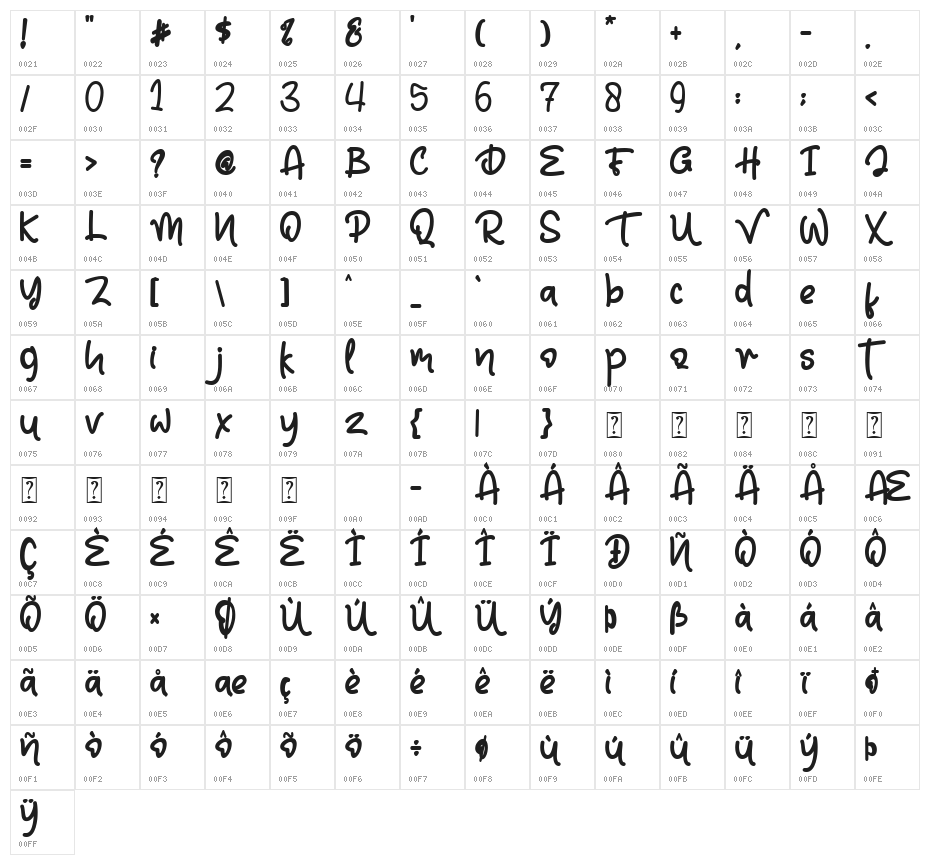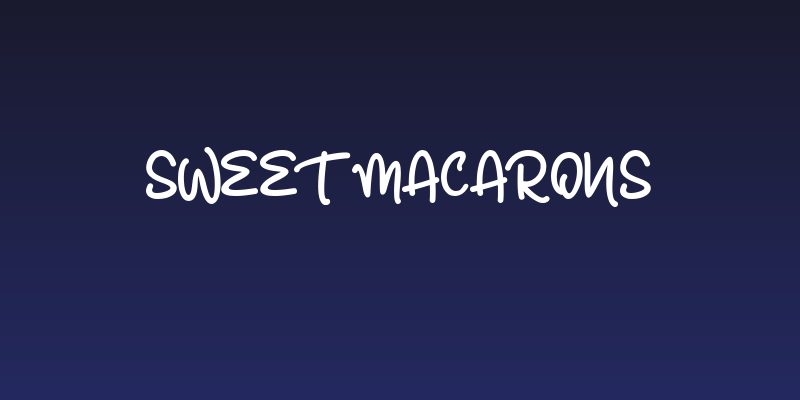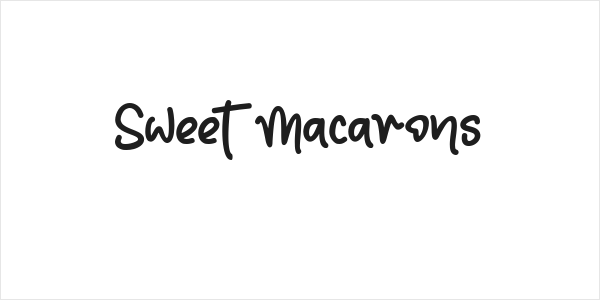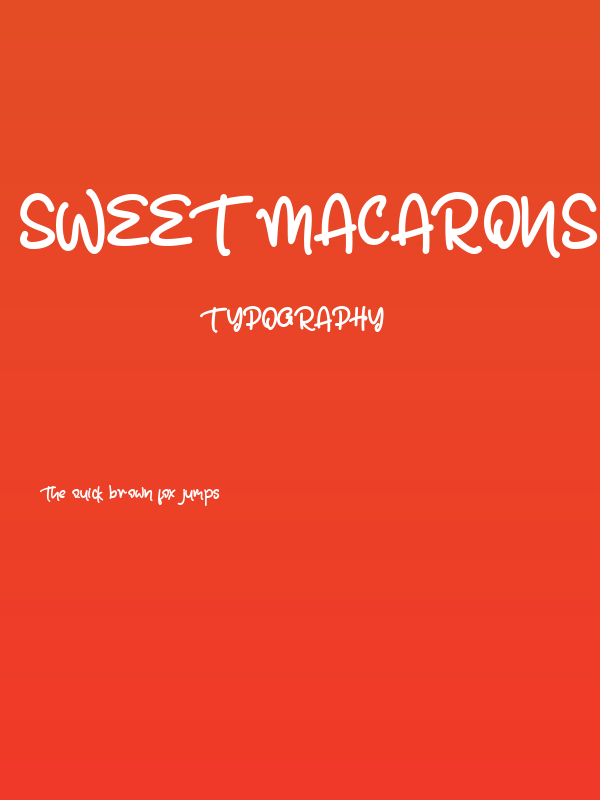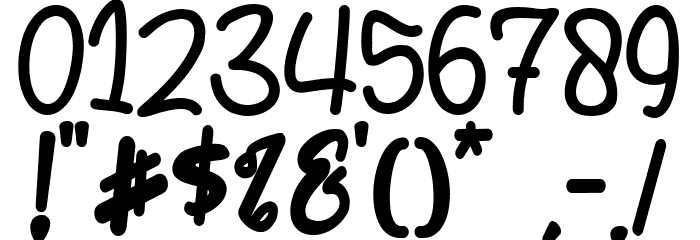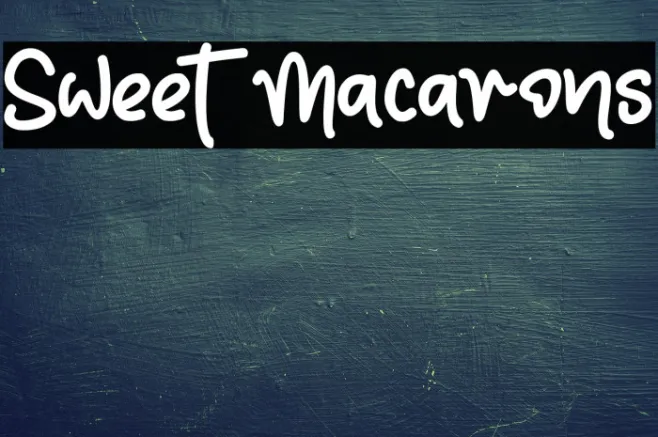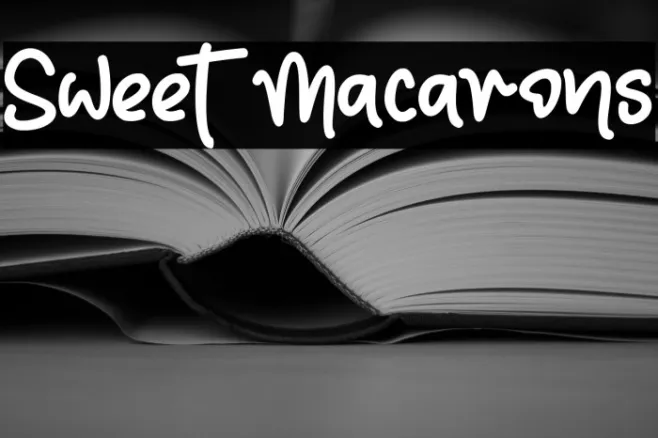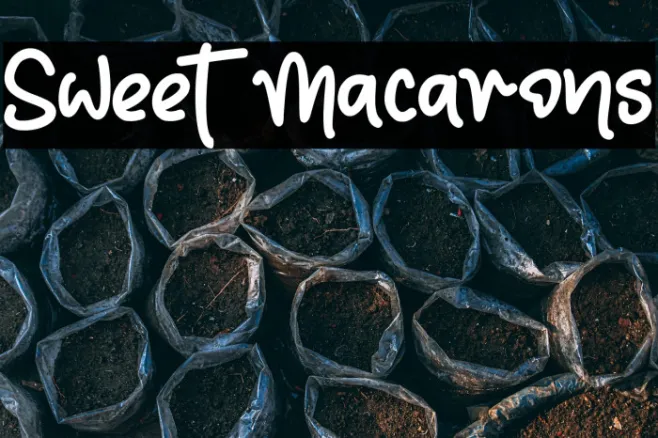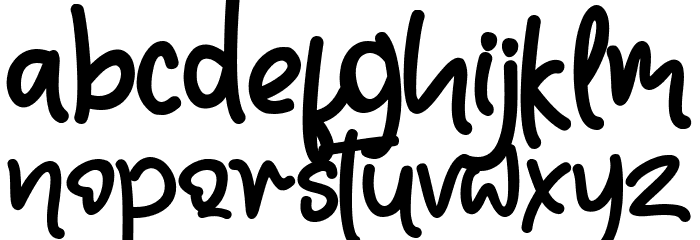
Sweet Macarons Font
Sweet Macarons Description
This playful and energetic font features a handwritten style with bold, rounded strokes that convey a sense of fun and creativity. The characters are slightly slanted, giving them a dynamic and informal appearance. The uppercase letters maintain a consistent height, while the lowercase letters are slightly smaller, adding to the casual feel. The numbers and special characters are designed with the same boldness and rounded edges, ensuring uniformity across the font. The overall look is friendly and approachable, making it ideal for projects that require a personal touch.
| Overall Style | Playful, Casual |
| Proposed Projects | Ideal for greeting cards, children's books, playful branding, and social media graphics. |